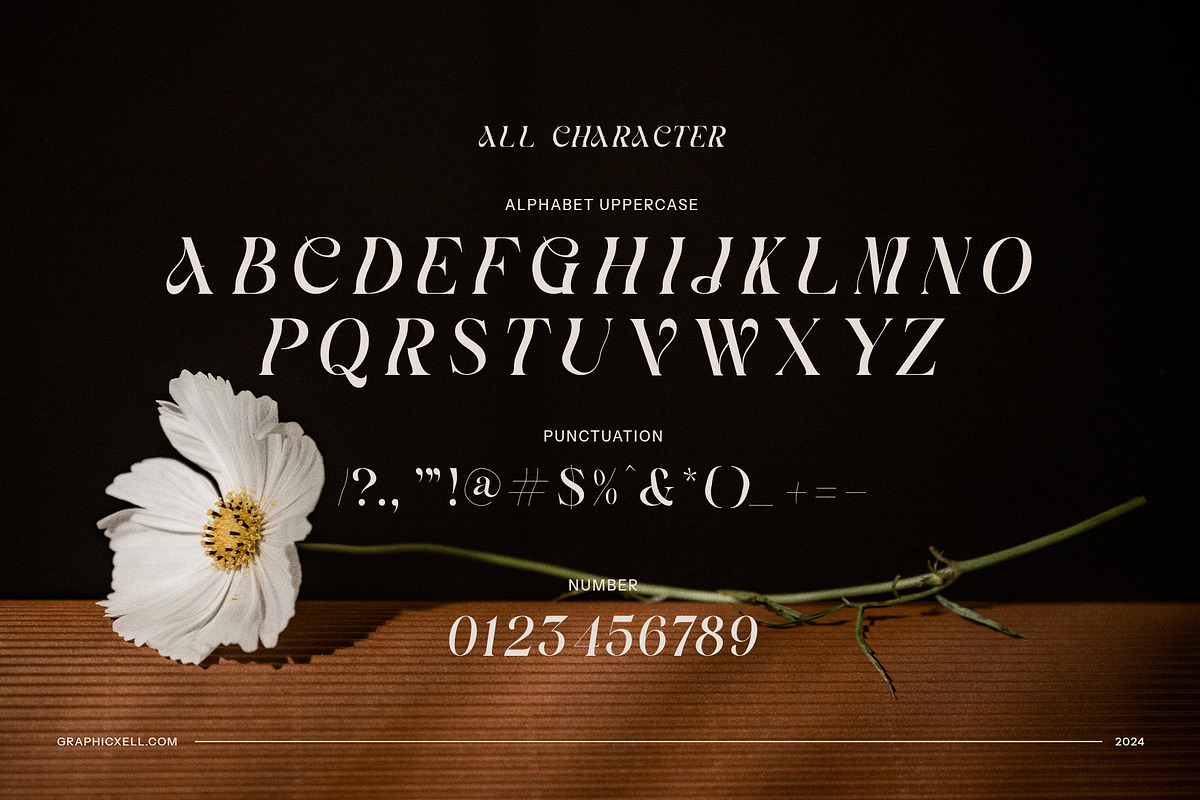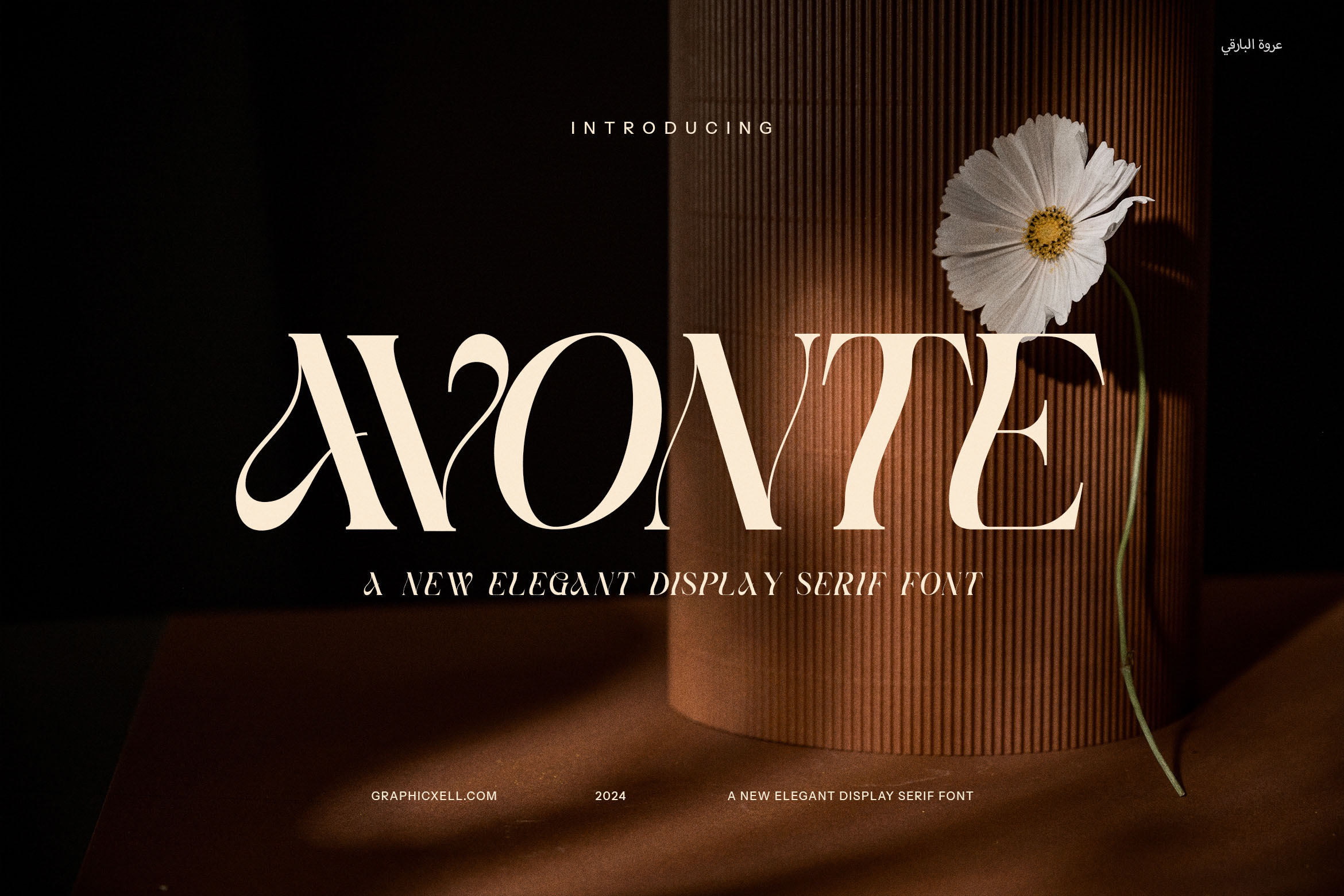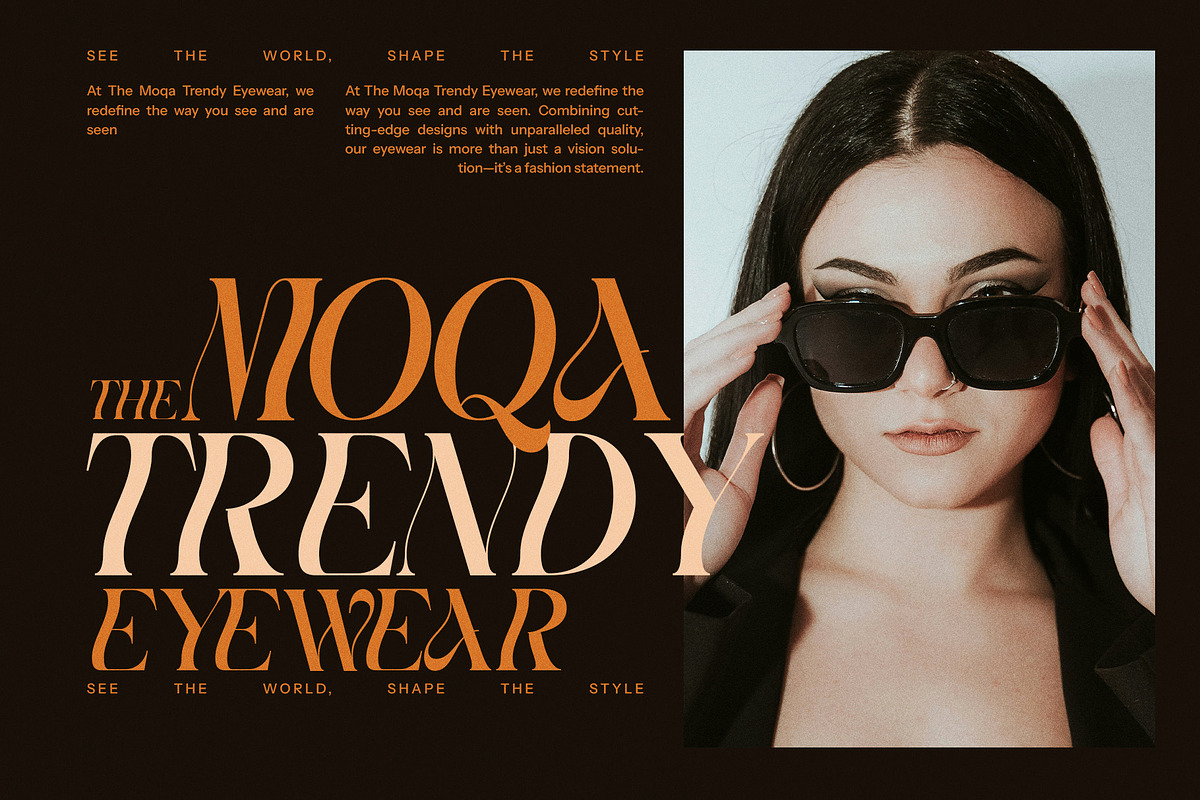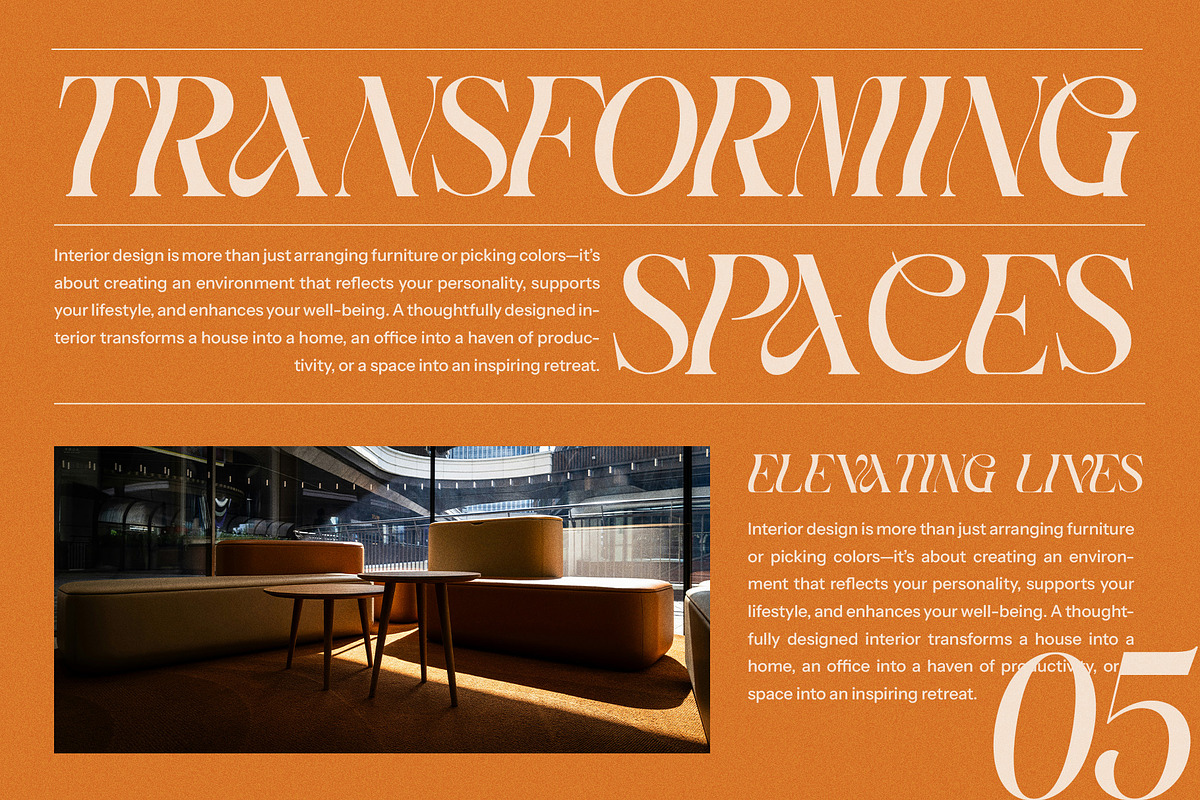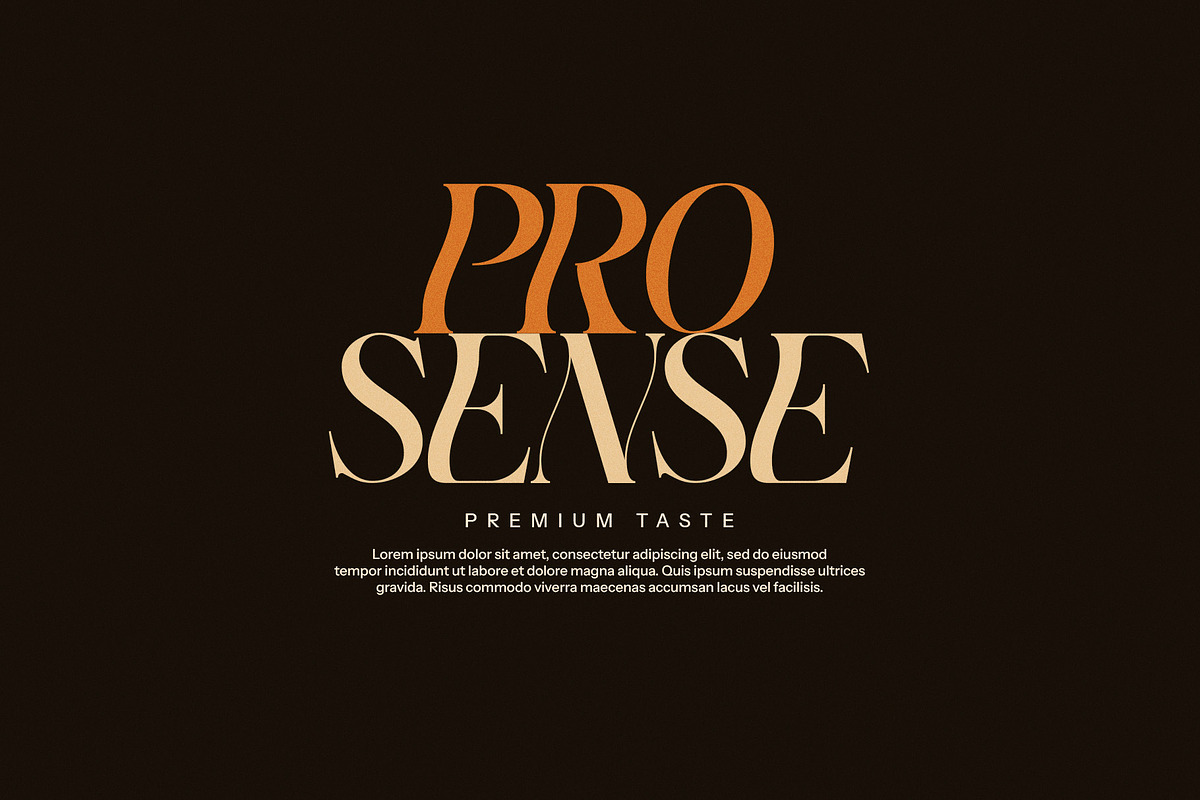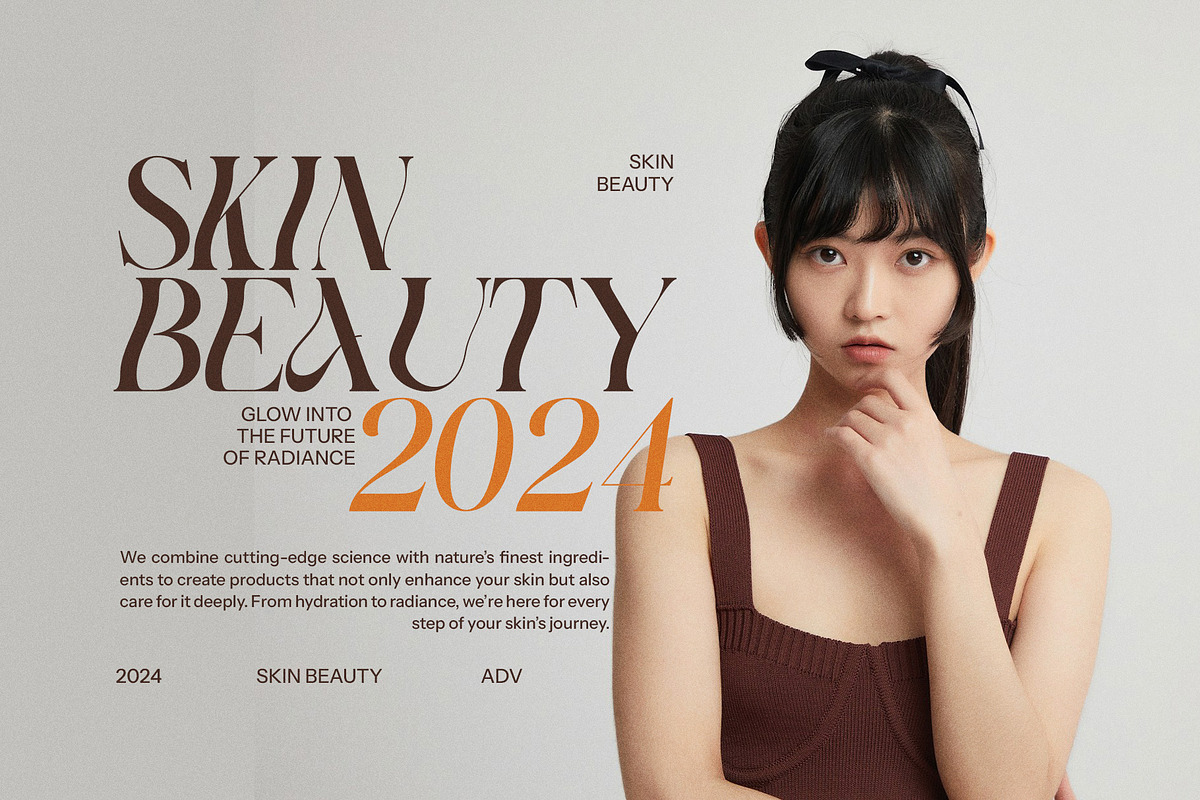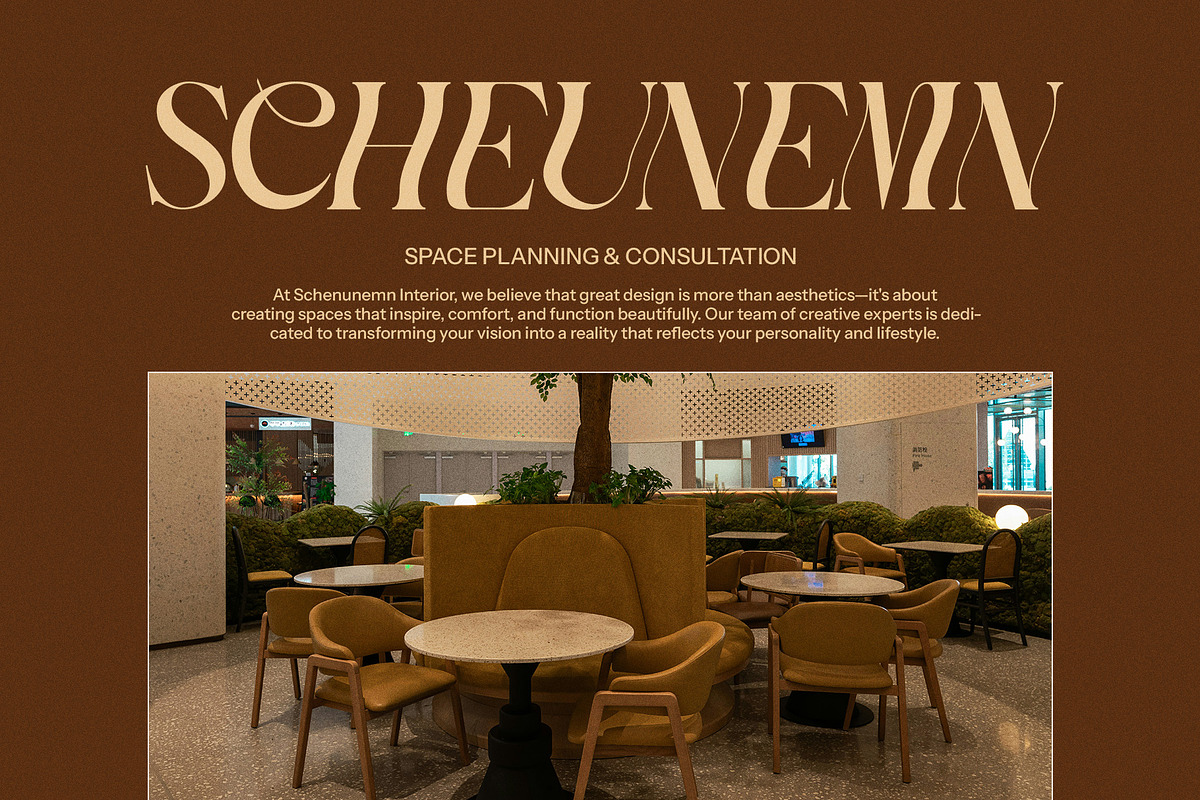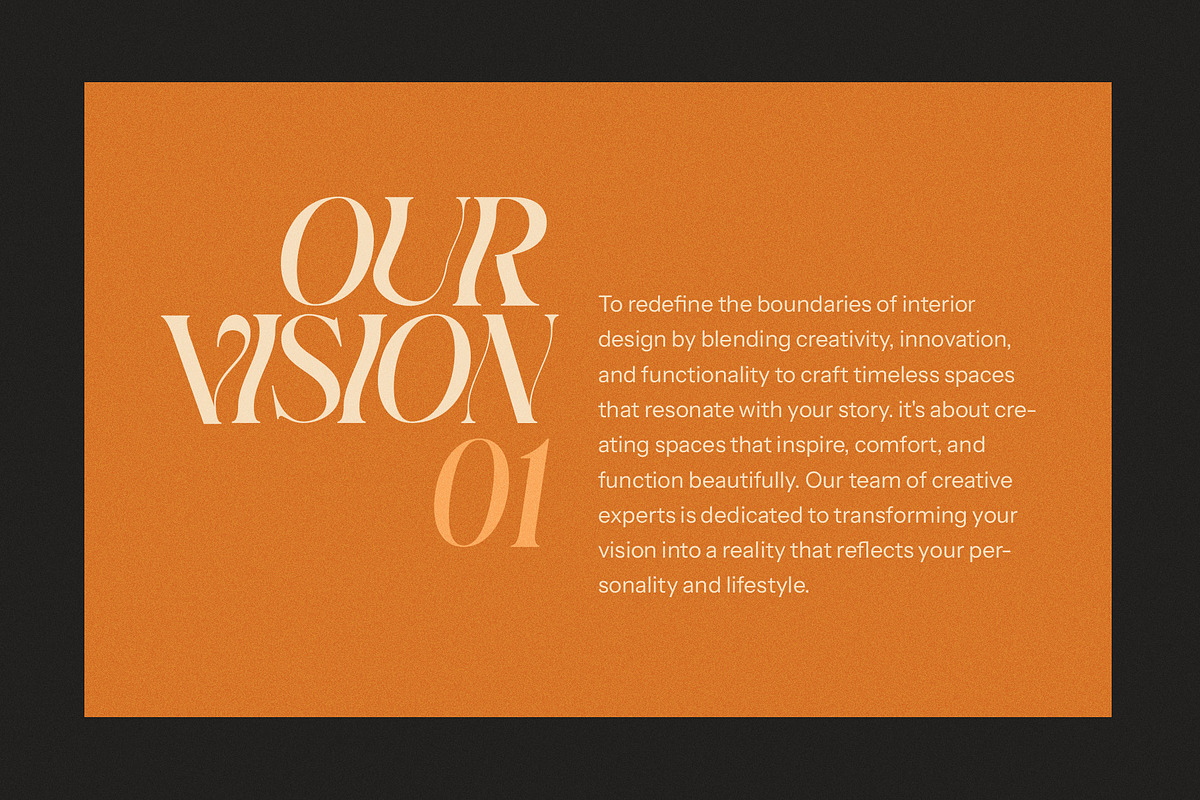
Avonte - Elegant Serif Font
Avonte Elegant Serif Font is a sophisticated and timeless typeface designed to bring a touch of luxury and refinement to any project. This modern serif font perfectly blends classic vintage charm with contemporary style, making it ideal for a wide range of design needs. Whether you're creating a high-end logo, building a brand identity, or designing stunning marketing materials, Avonte adds an air of elegance and distinction.
With its carefully crafted letterforms, Avonte Elegant Serif Font exudes a unique personality that makes it stand out in both digital and print formats. Its clean lines and graceful curves offer excellent readability, while its bold character gives it an unmistakable presence. The font is perfect for luxury branding, fashion boutiques, high-end restaurants, and premium products, elevating any visual identity.
Avonte is versatile and well-suited for use in various design projects, including websites, magazines, brochures, product packaging, advertisements, and more. Its timeless elegance makes it a great choice for creating sophisticated layouts, editorial designs, and promotional materials that need to capture attention and leave a lasting impression.
Whether you're working on a corporate identity, a creative project, or an upscale event, Avonte Elegant Serif Font will bring a touch of refined class to your design, making it a must-have for designers seeking both style and functionality in one font. Add a dash of elegance to your designs with Avonte—where modern meets vintage in perfect harmony.